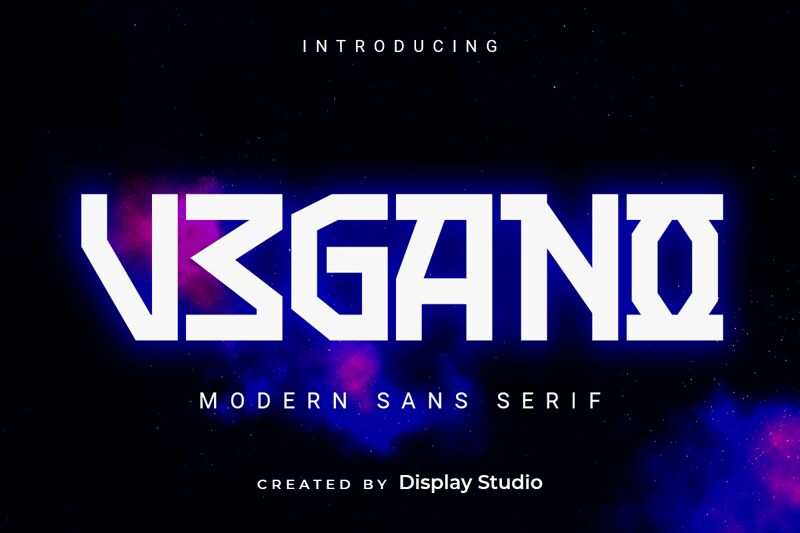
VEGANO
With its sleek and bold design, VEGANO by Display Studio is the ultimate futuristic font. Its sharp edges and unique curves make it perfect for a variety of projects, from science fiction book covers to cutting-edge technology websites. Use it on posters for tech conferences or as the headline for a new product launch. The possibilities are endless with VEGANO's eye-catching style. Boost your brand's image with this daring font and stand out in today's competitive market.